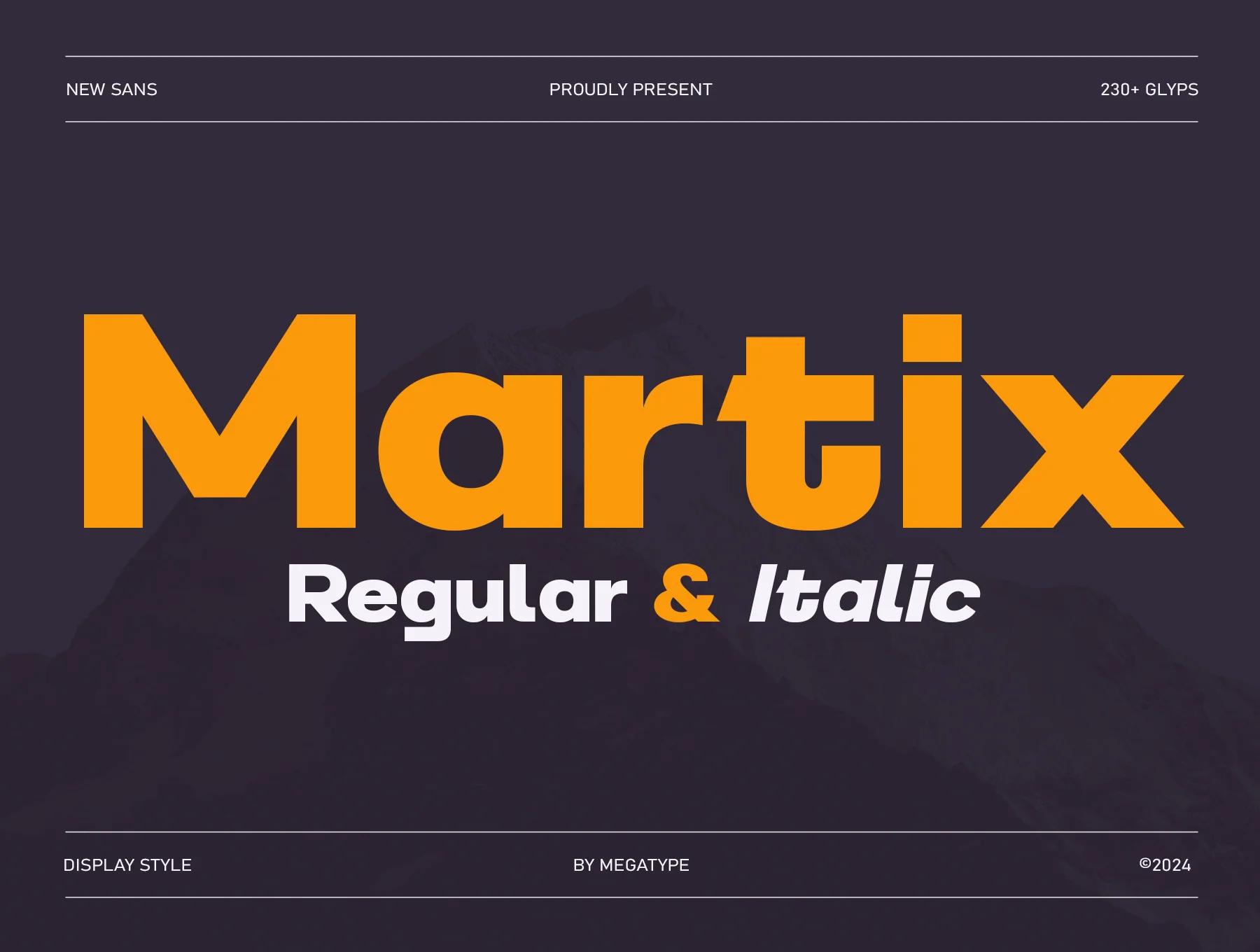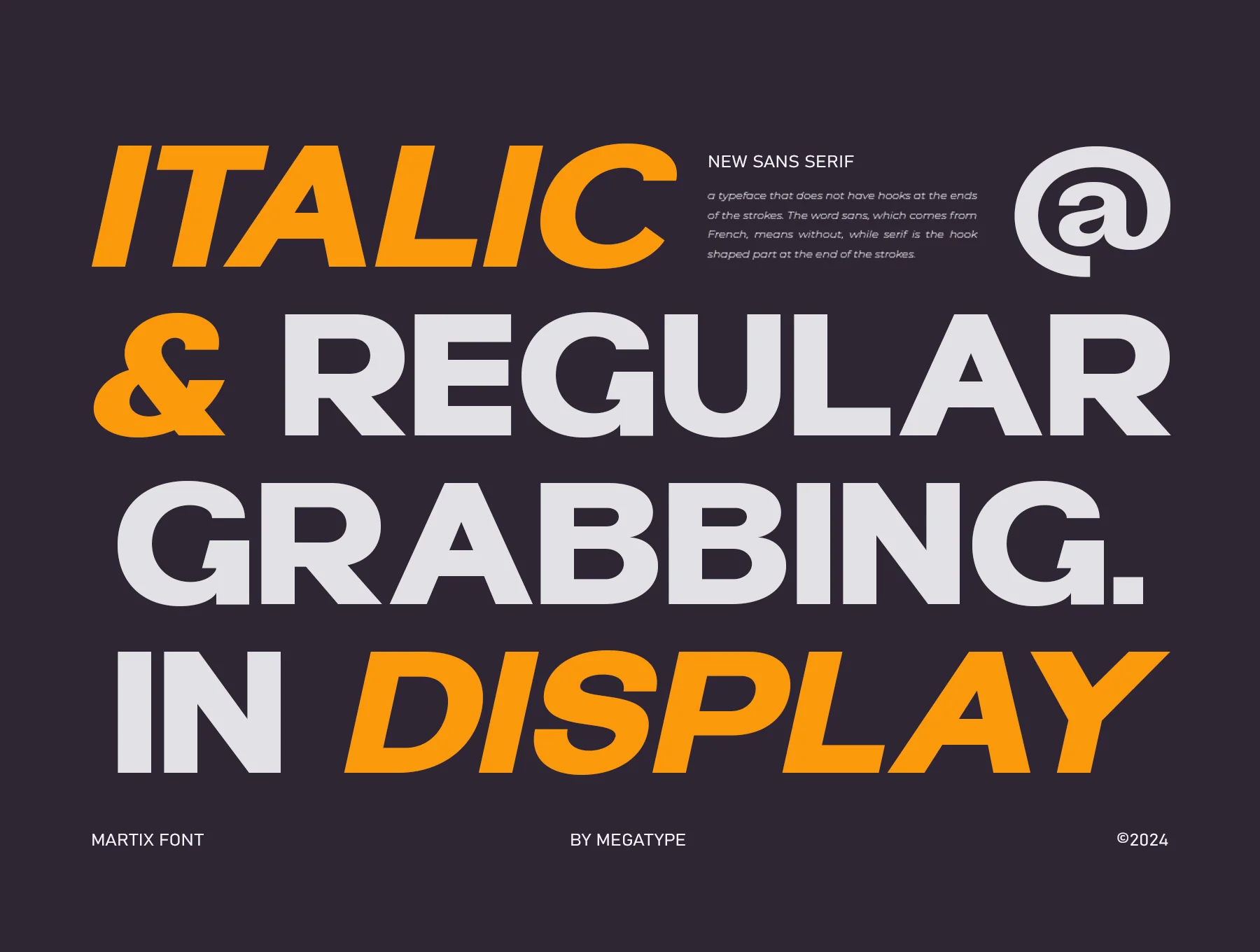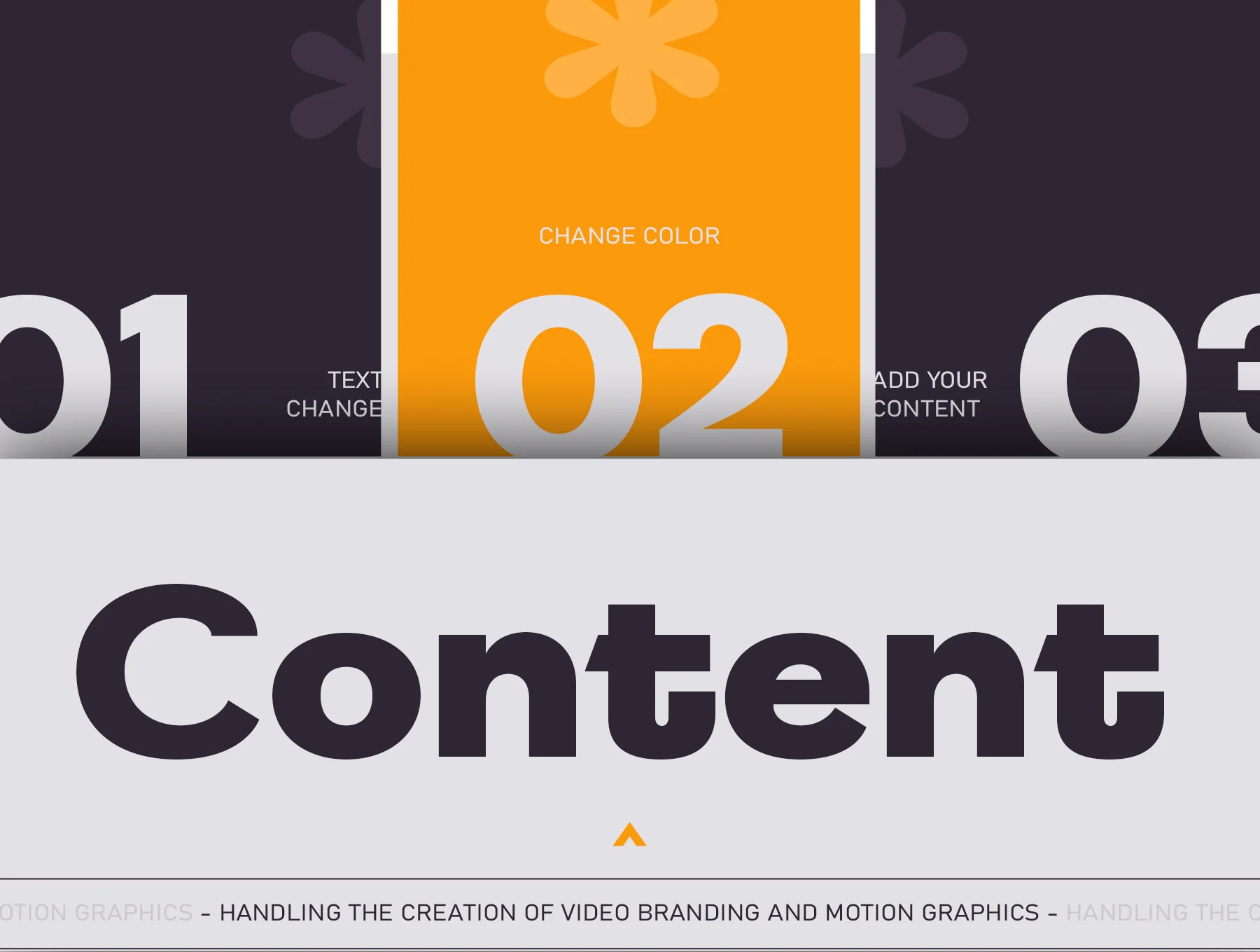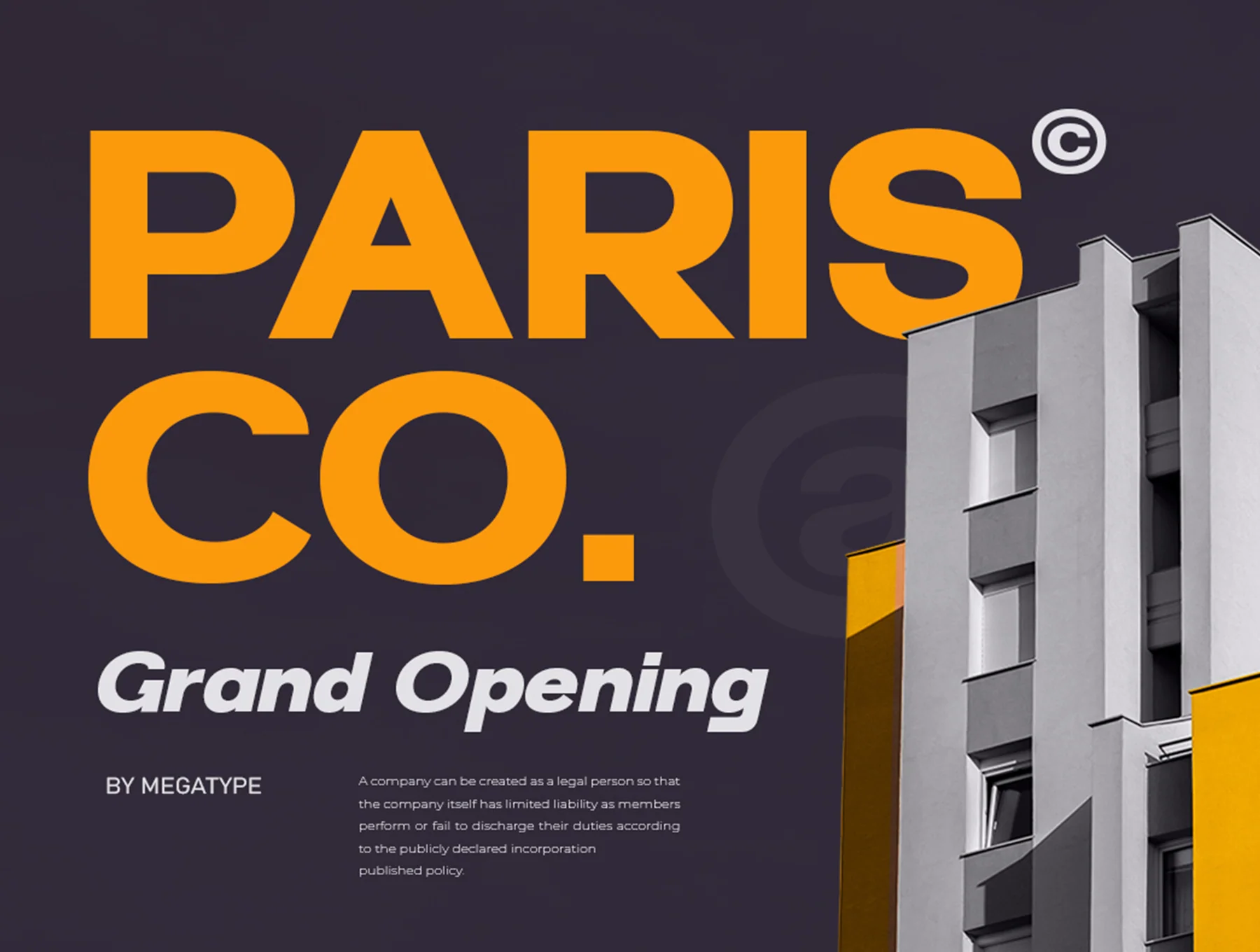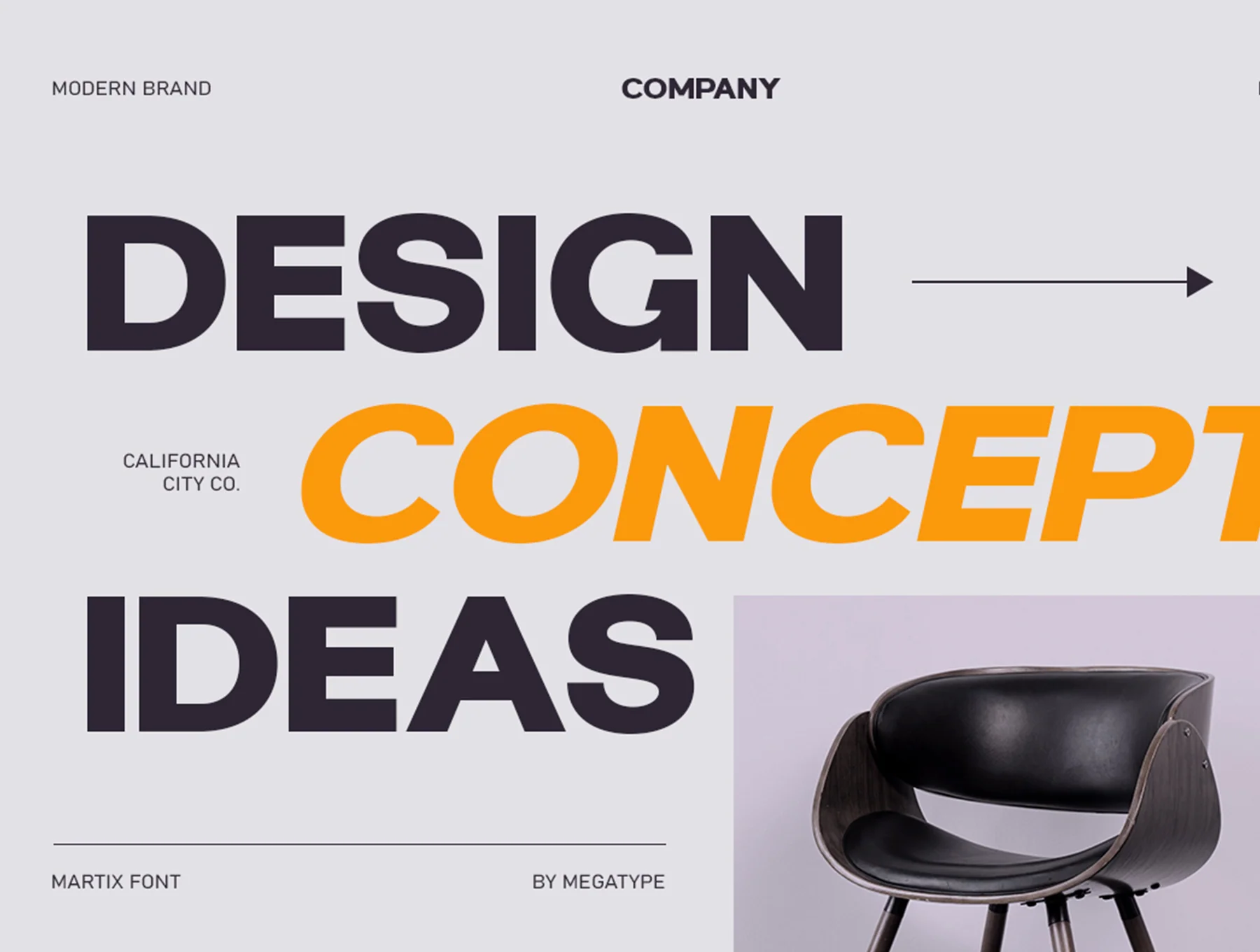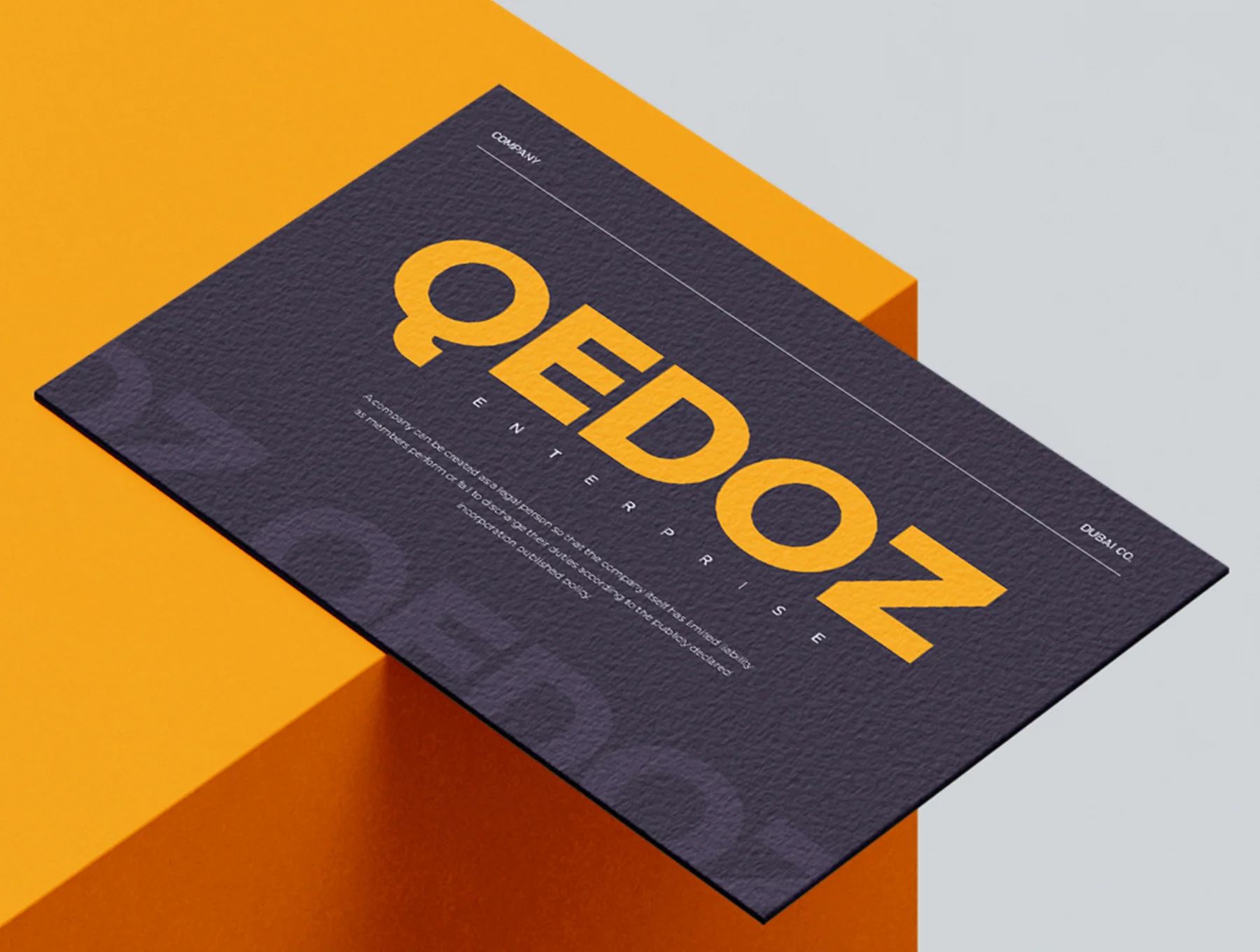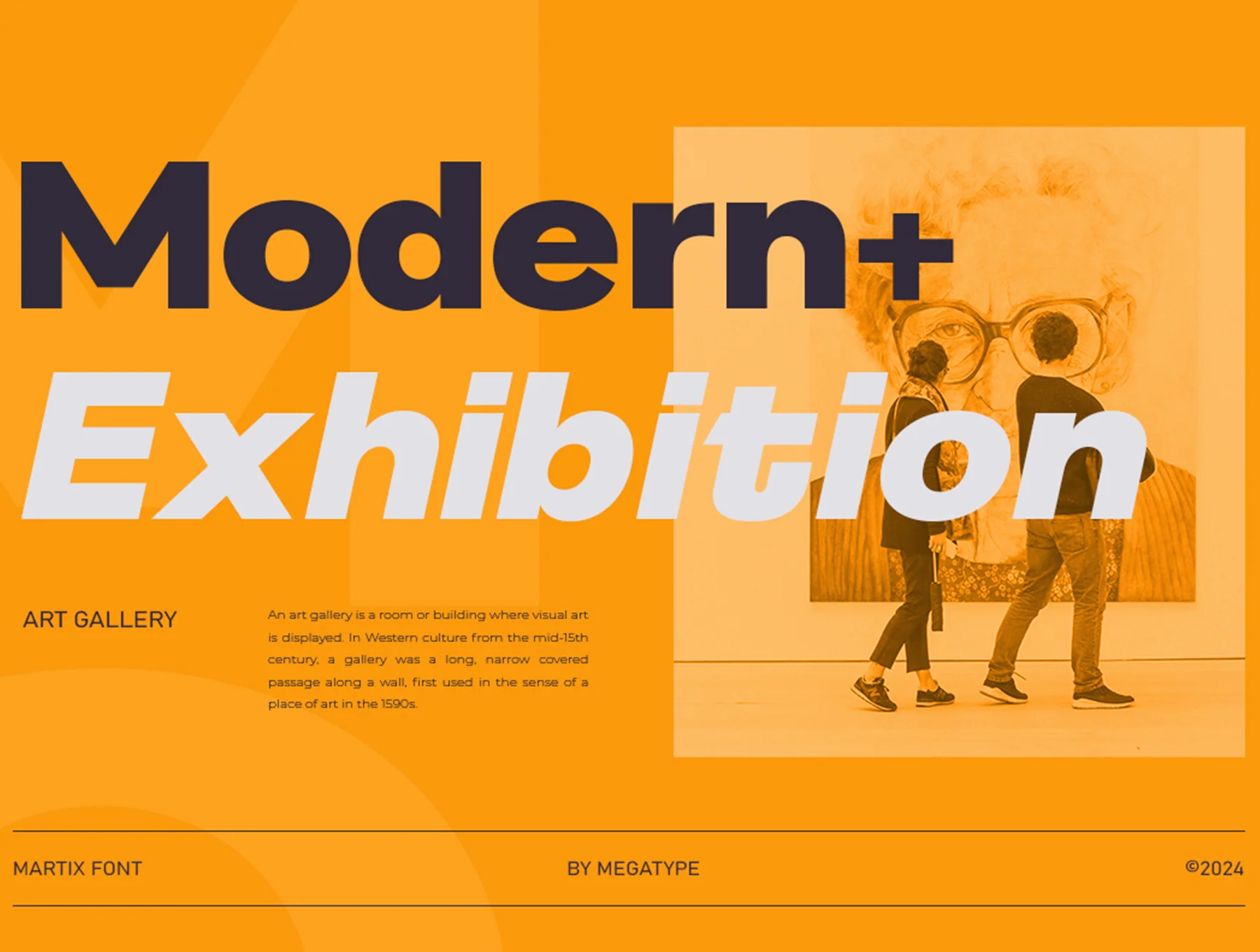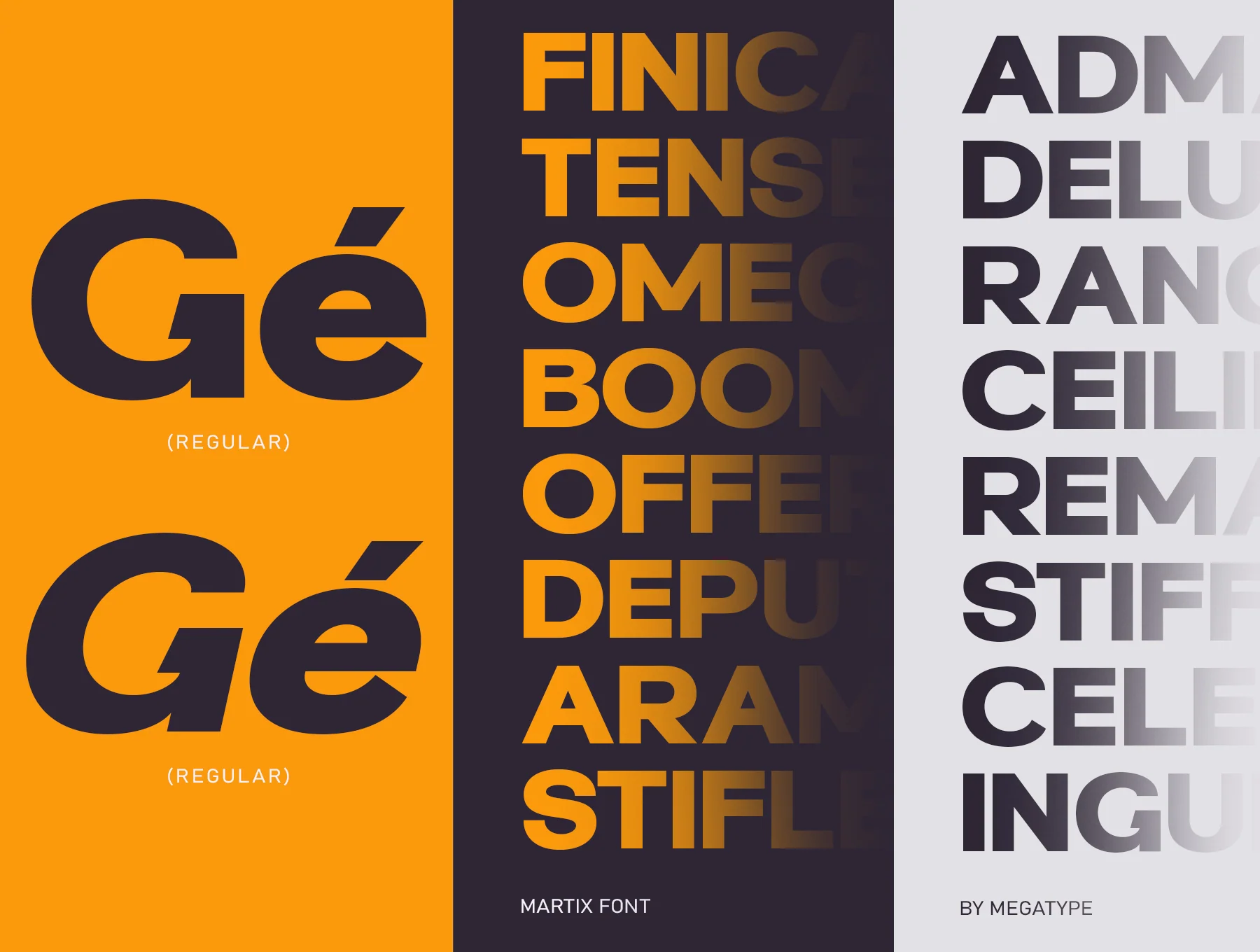
Martix | Sans Serif Font
Martix features a distinctive contemporary look with geometric accents.
Martix upright and italic styles
Basic glyph set
Full capital and lowercase letters
Martix upright and italic styles
Basic glyph set
Full capital and lowercase letters
Martix features a sleek contemporary look, shaped by geometric elements and an industrial feel. With regular and italic versions, it suits many design needs, including logos, ads, photo marks, stationery, branding, displays, magazines, packaging, labels, business materials, and more. Includes OTF, TTF, WOFF, and WOFF2 files. Enjoy creating with Martix!